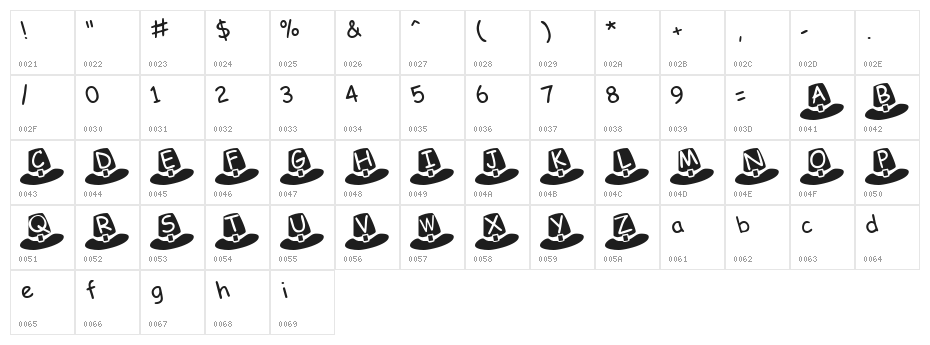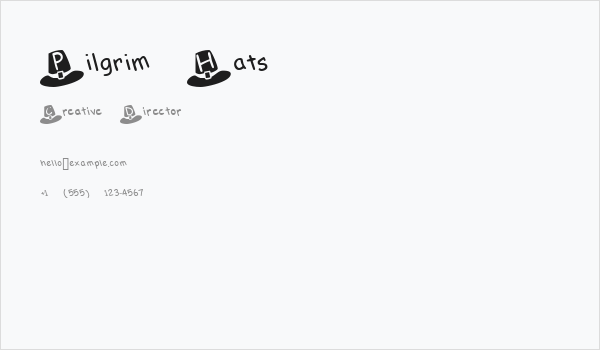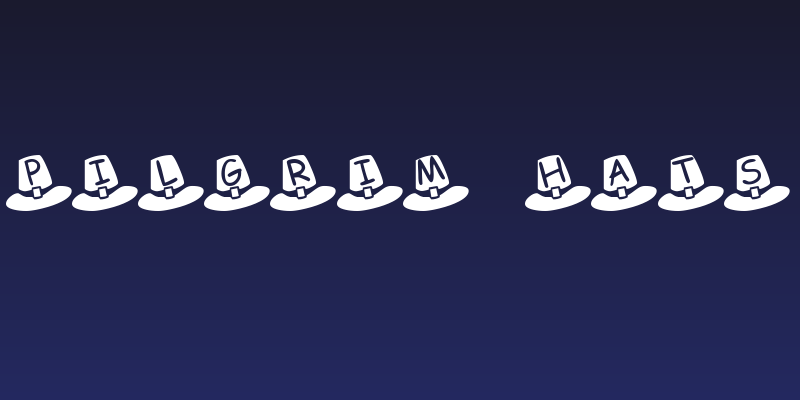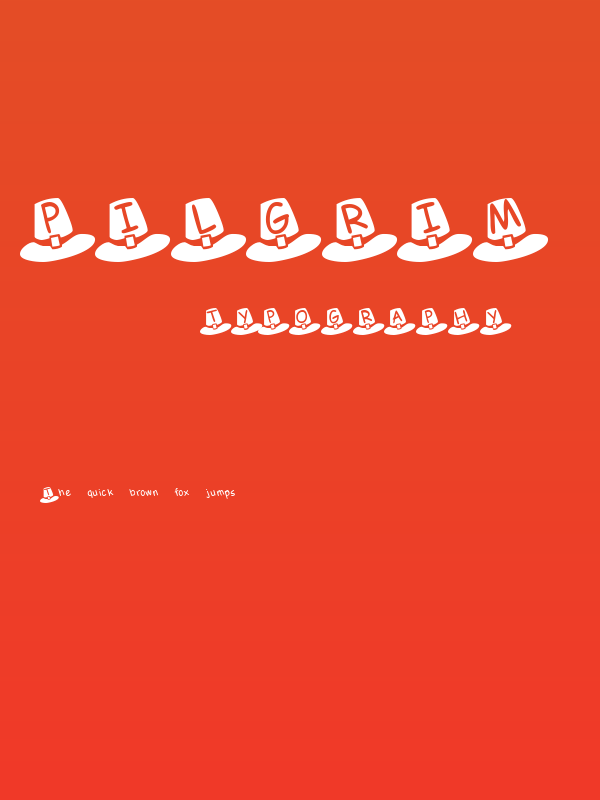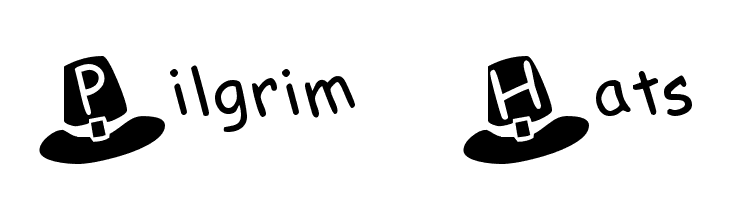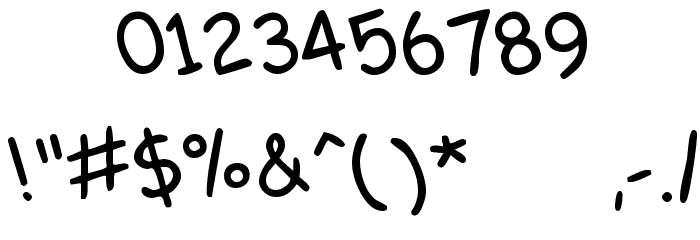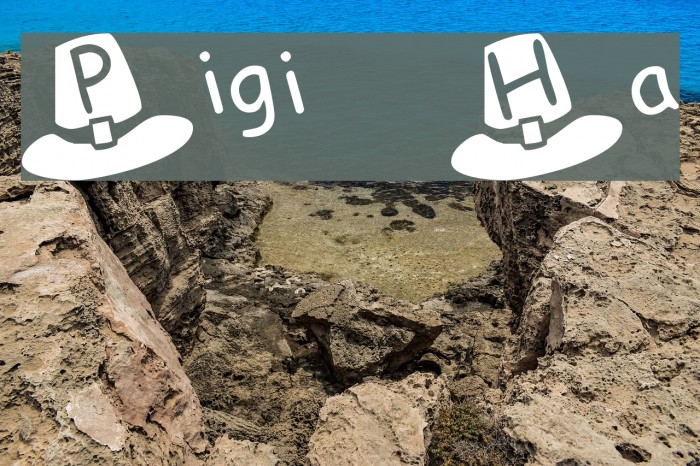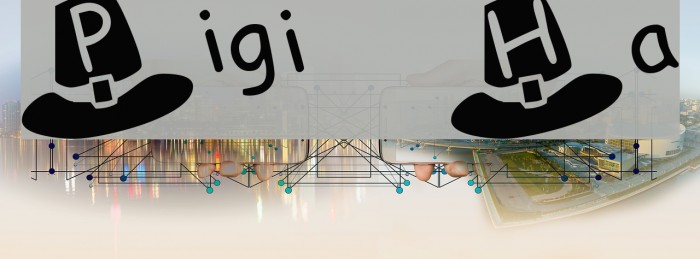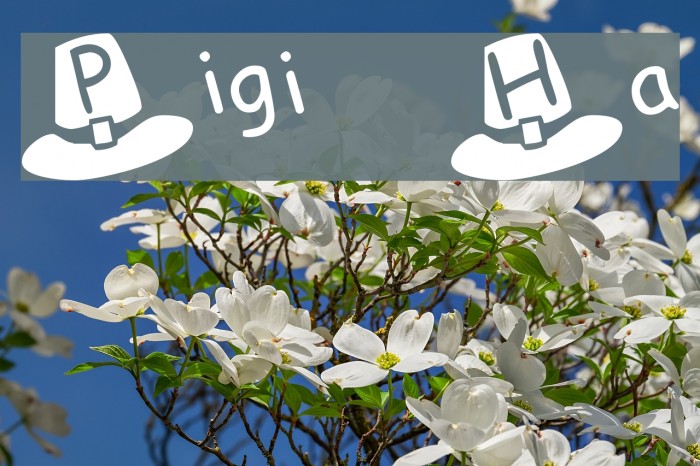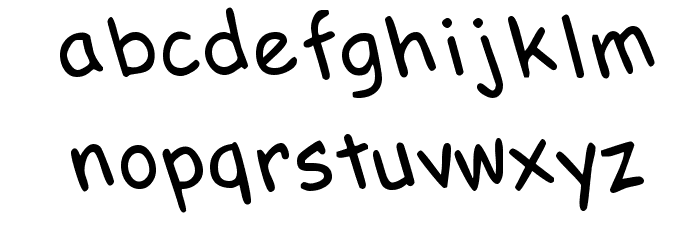
Pilgrim Hats Font
Pilgrim Hats Description
This playful and whimsical font features uppercase letters adorned with charming pilgrim hats, adding a festive and thematic touch. The lowercase letters and numbers maintain a casual, handwritten style, characterized by smooth curves and a friendly appearance. The font includes a full set of numerals and a variety of special characters, making it versatile for creative projects. The overall design is light-hearted and fun, perfect for seasonal events or themed designs.